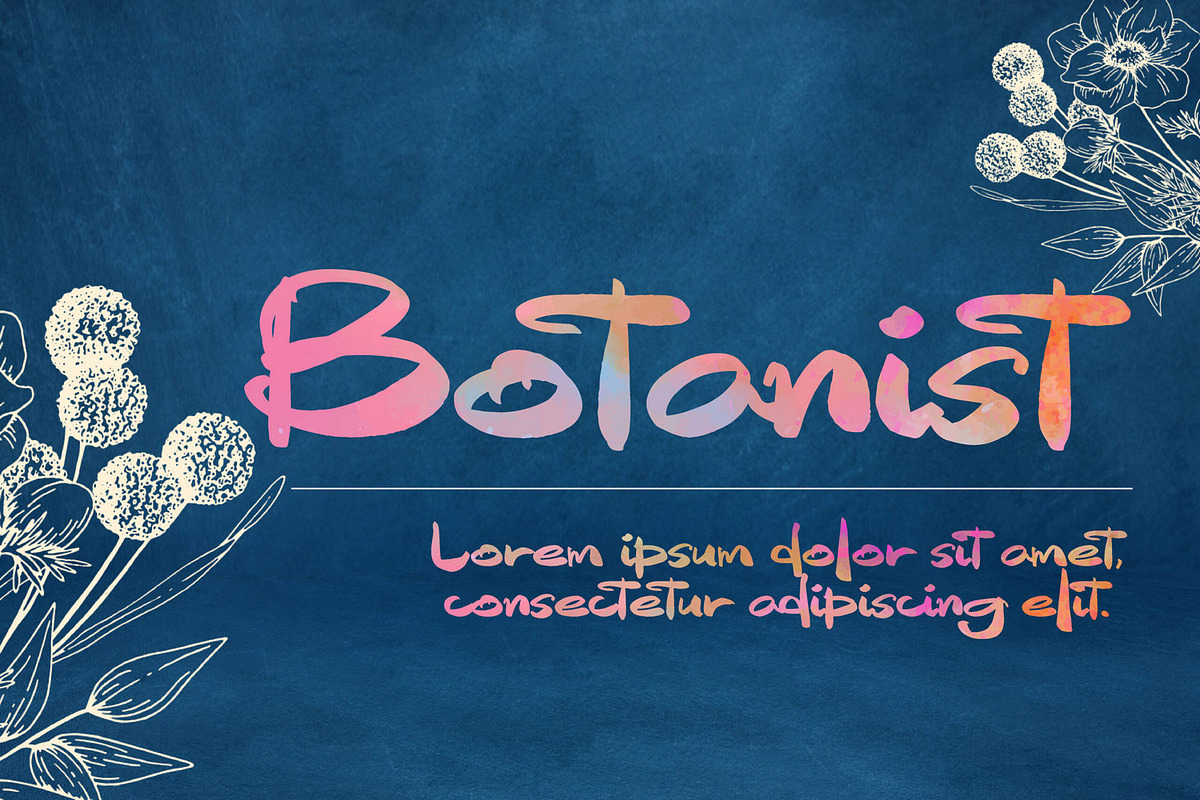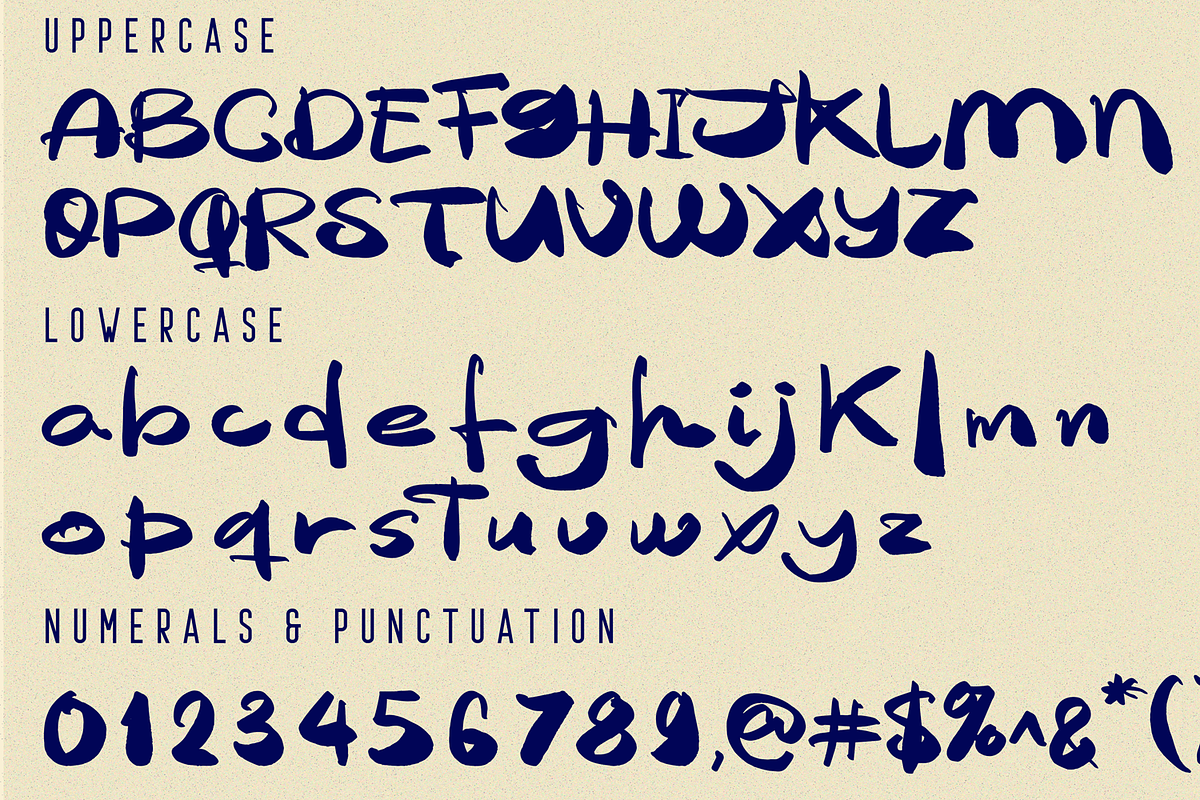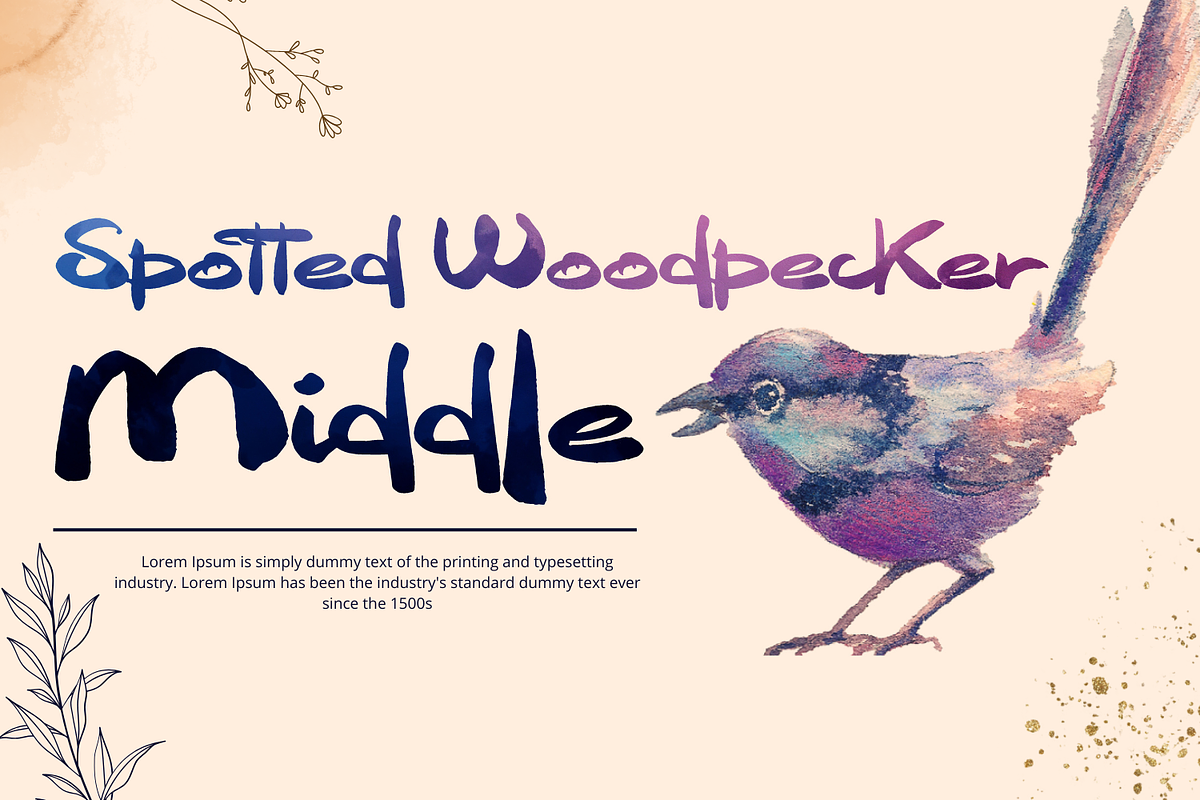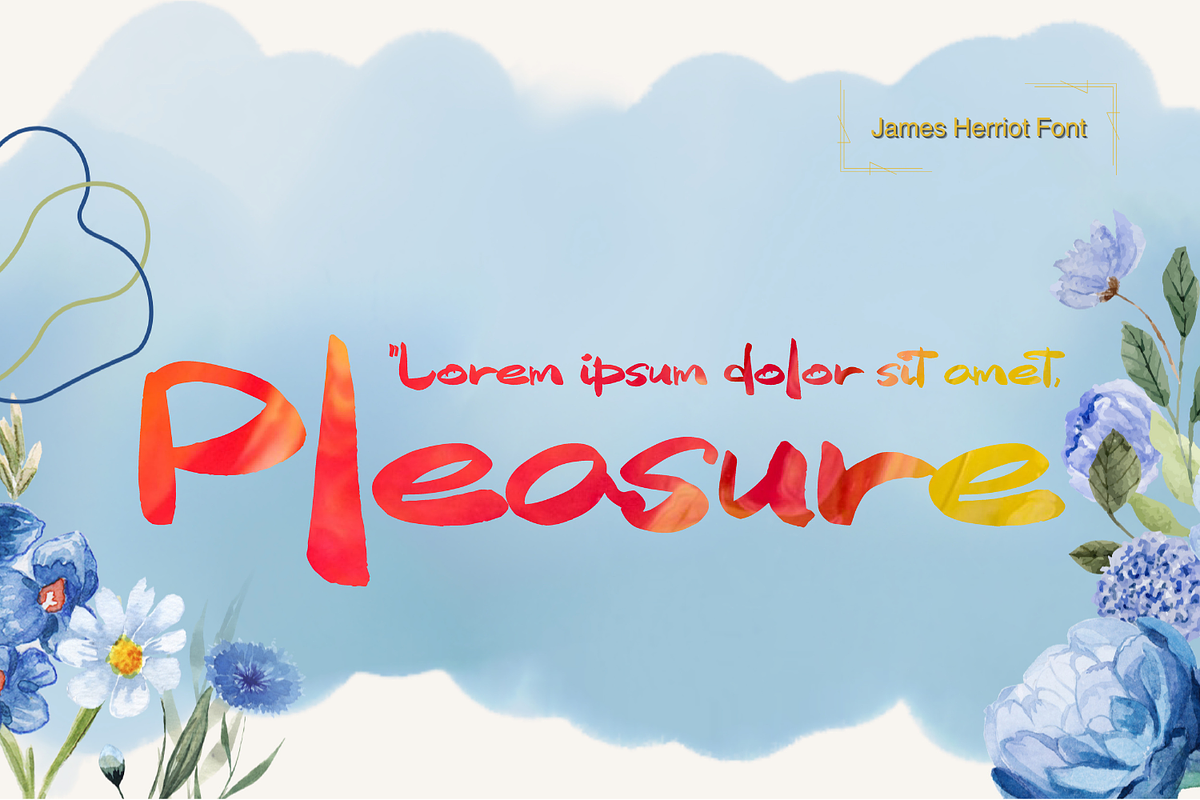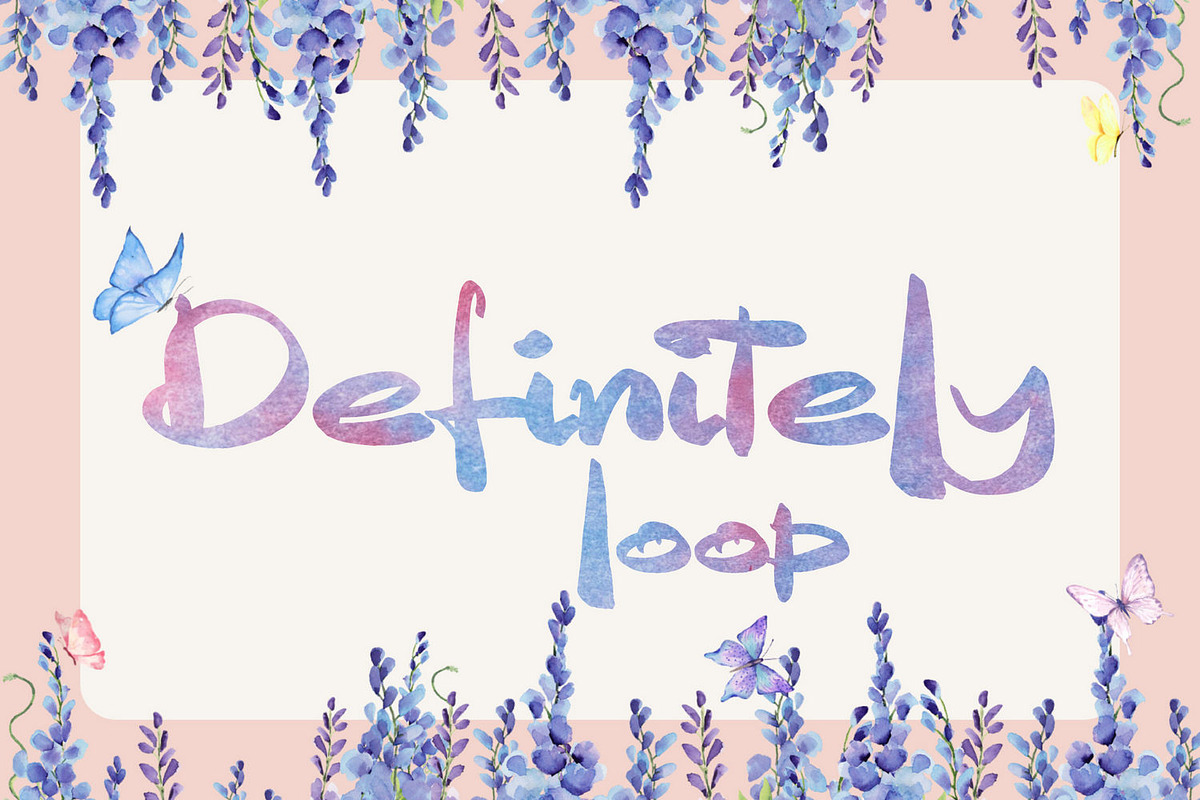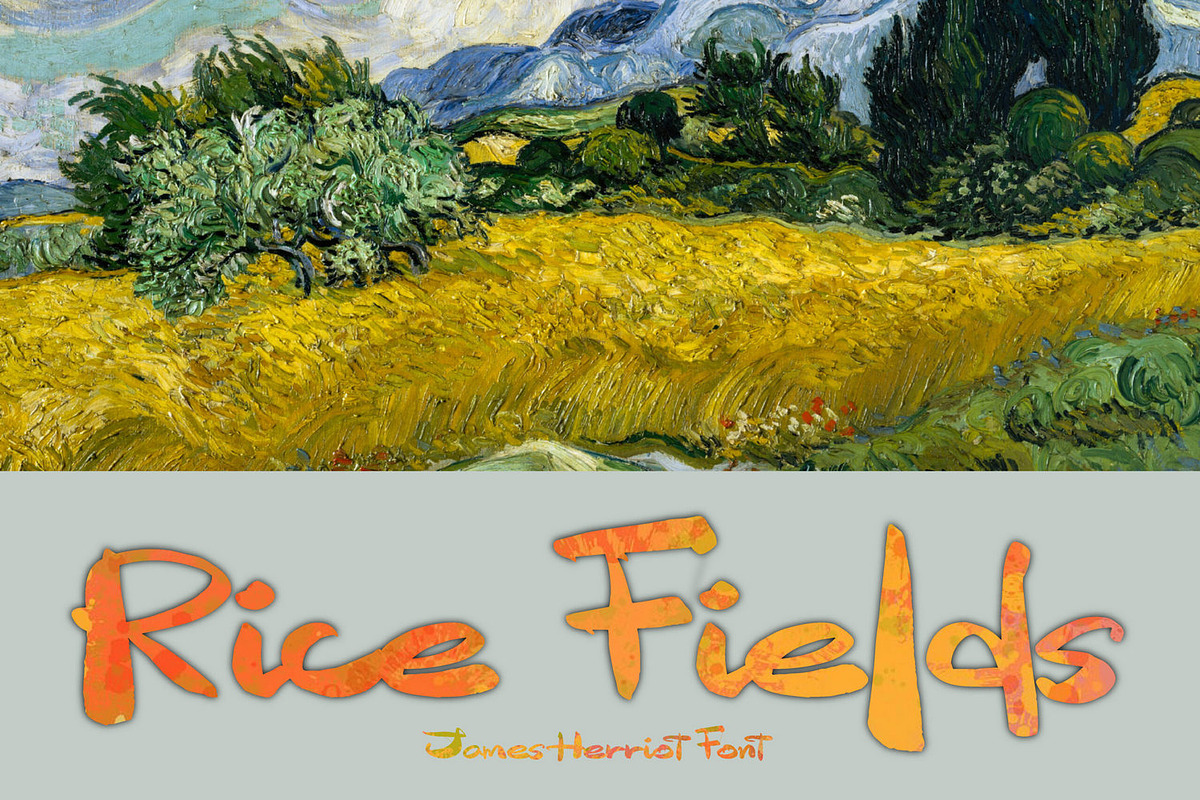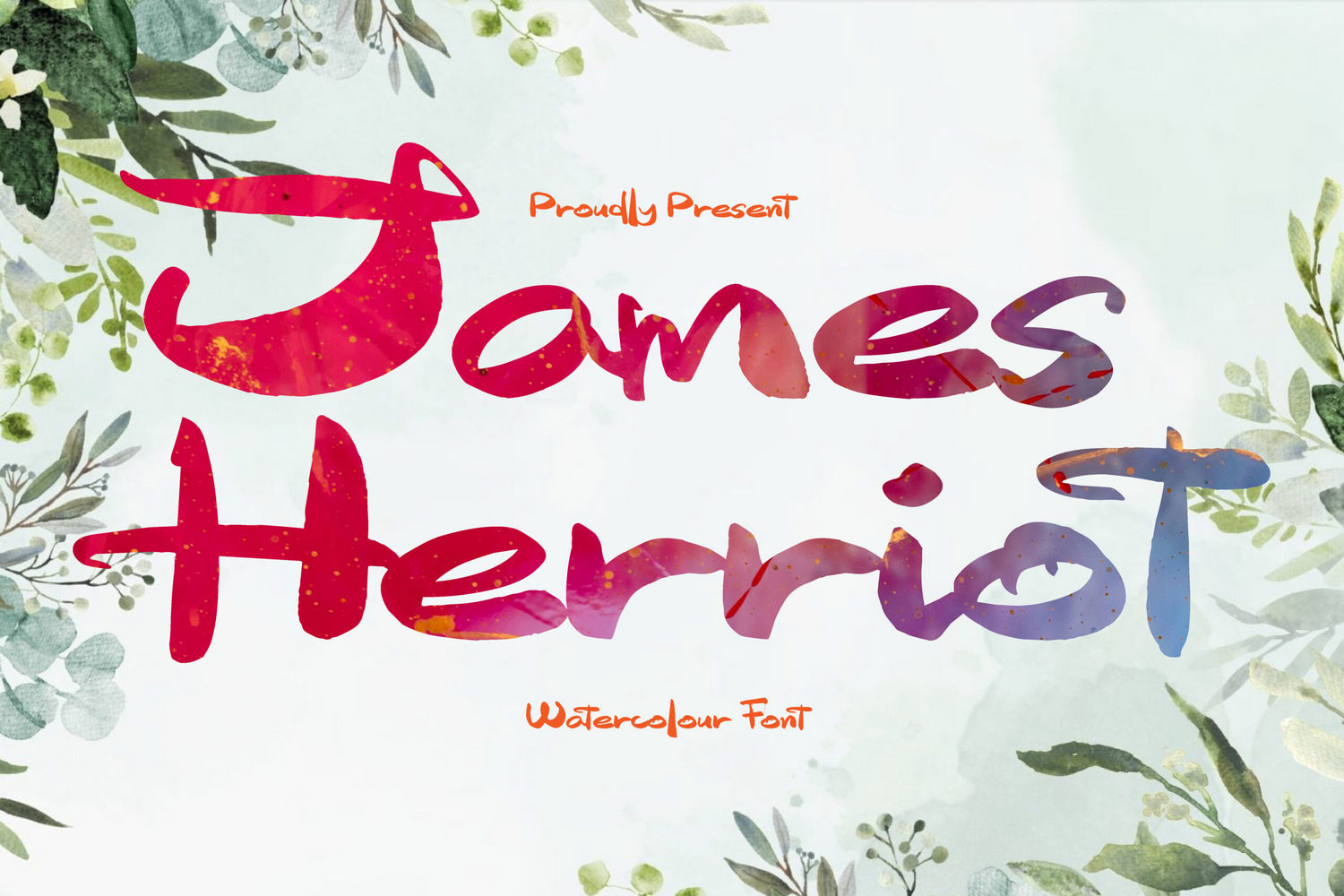
James Herriot Brush Font
James Herriot Brush Font is a hand-drawn brush font with rough and bold letters. Was created as a dual-purpose font, with gritty, imperfect, hand-painted characters and an irregular baseline. It's great for logos, branding, print projects and any attention drawing headline.